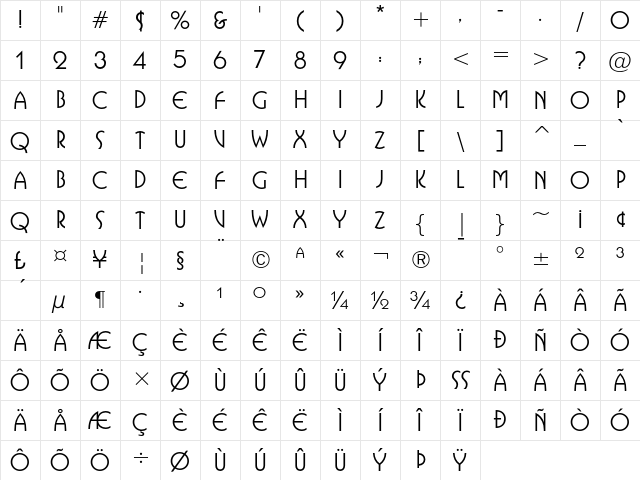
ITC Busorama Medium
ITC Busorama Family
ITC Busorama Medium
ITC Busorama Medium Font Preview
ITC Busorama Medium Uppercase Preview
ITC Busorama Medium Lowercase Preview
ITC Busorama Medium Numeric Preview
ITC Busorama Medium Character Map
Complete ITC Busorama Medium glyph index. Displaying only characters natively supported by ITC Busorama Medium font.
ITC Busorama Medium Character Map
Design Context for ITC Busorama
ITC Busorama is a composed and adaptable typeface that performs quietly and consistently across a wide range of design contexts.
Pro Tip: Use ITC Busorama in both headline and body roles to test its range before committing to a single application.